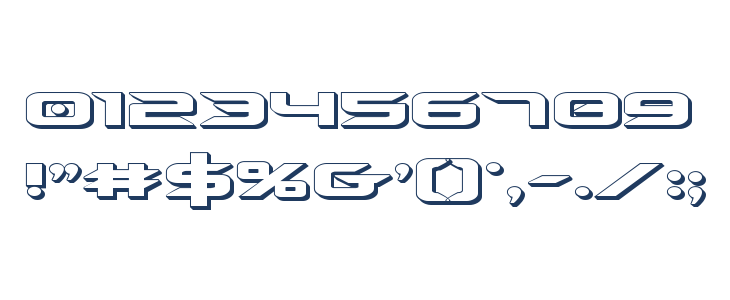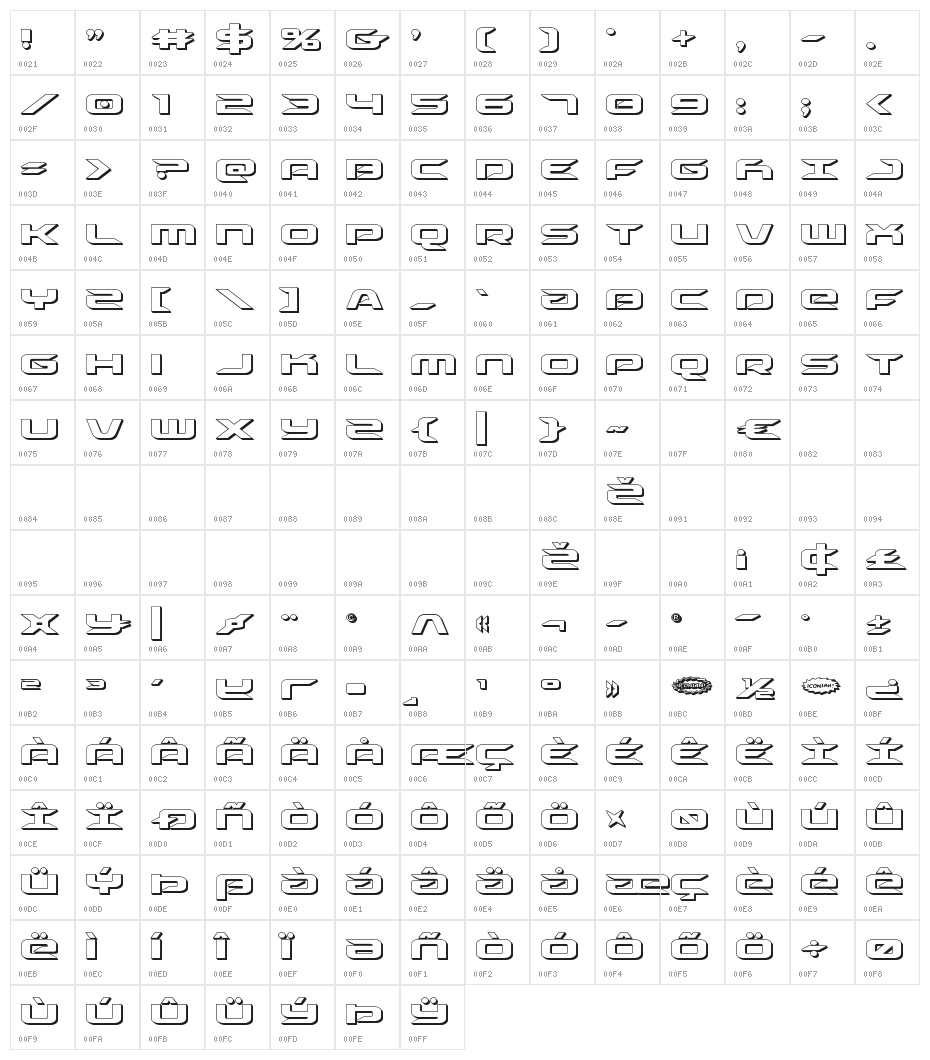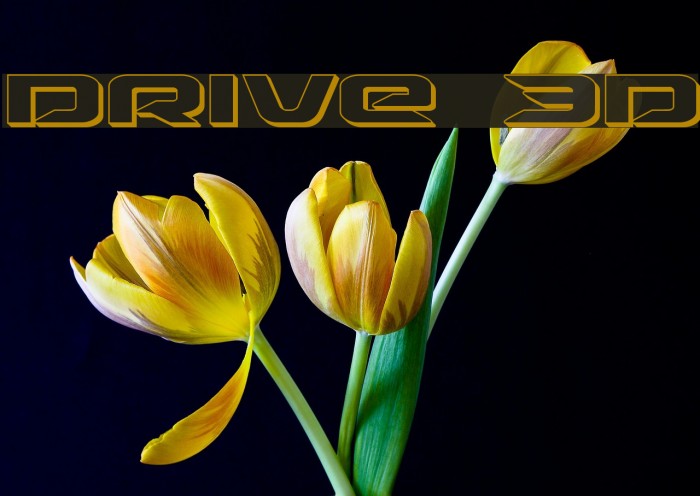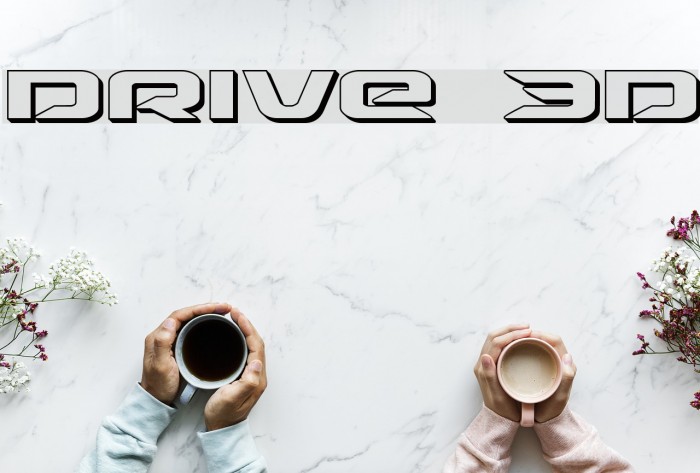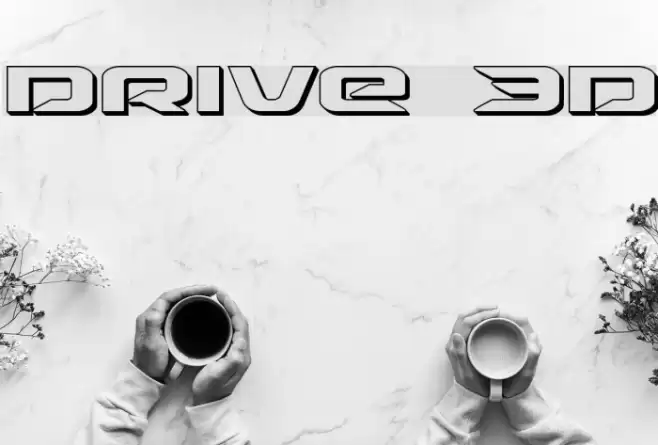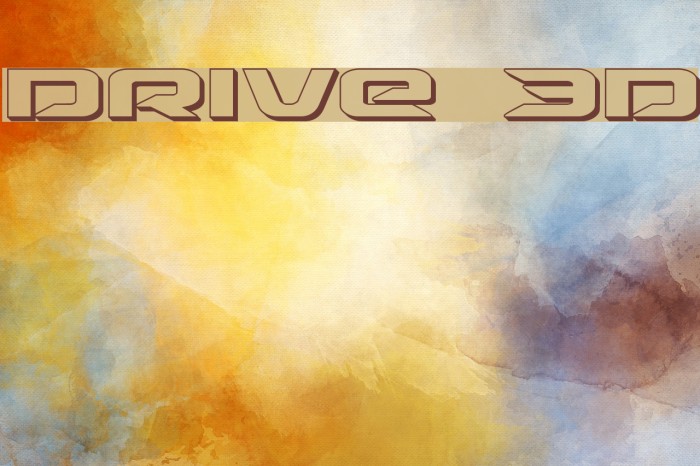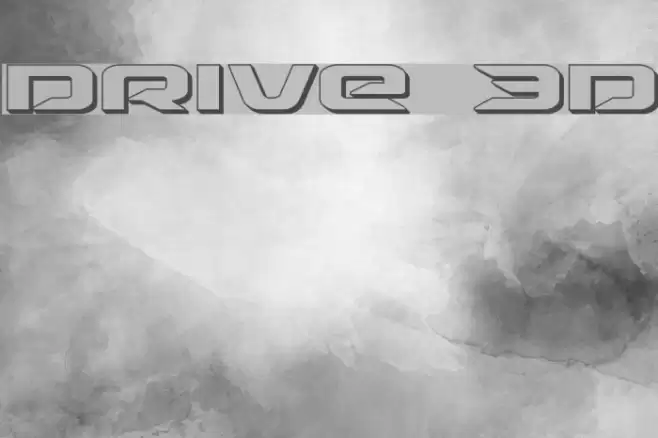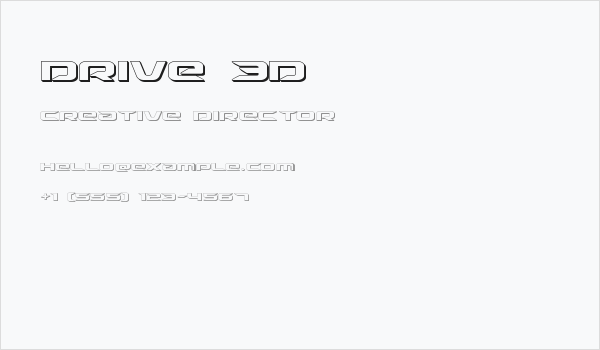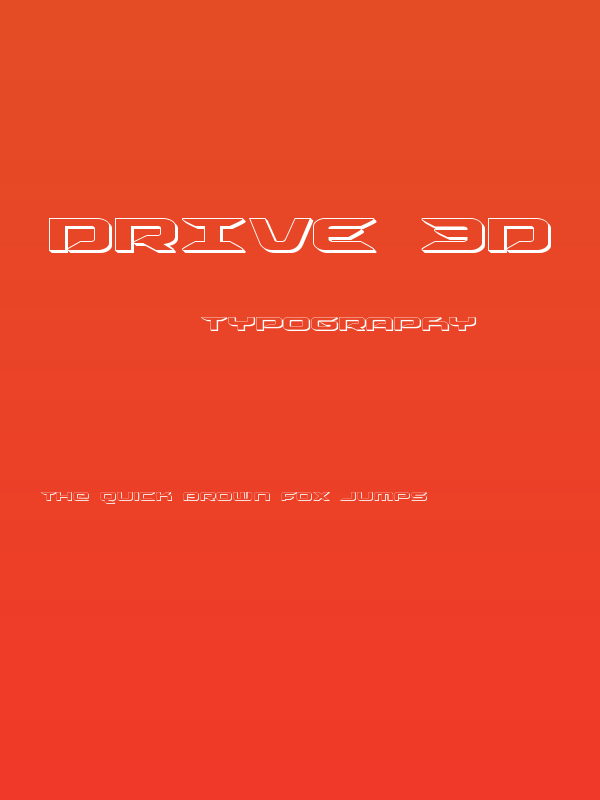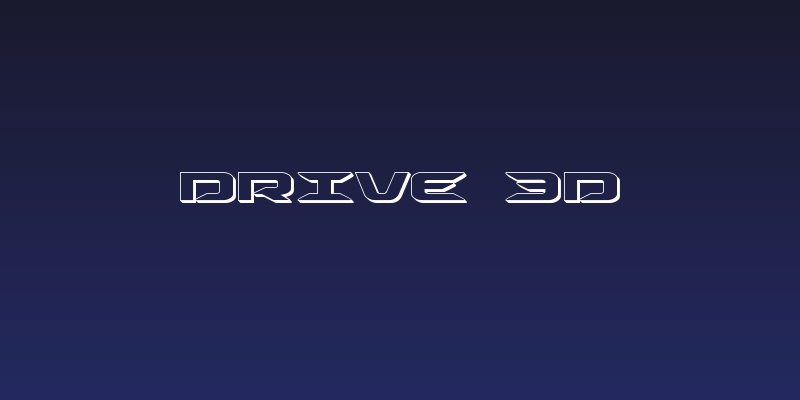
Drive 3D Font
Drive 3D Description
This font features a futuristic and geometric design, characterized by its bold and angular letterforms. The characters are outlined with a distinct three-dimensional effect, giving them a dynamic and modern appearance. The uppercase and lowercase letters maintain a consistent style, with sharp edges and a sense of movement. The numerals and special characters follow the same design principles, ensuring a cohesive look across all elements. This font is ideal for projects that require a cutting-edge and tech-inspired aesthetic.
| Proposed Projects | Ideal for technology branding, sci-fi themed designs, video game titles, and modern advertising. |